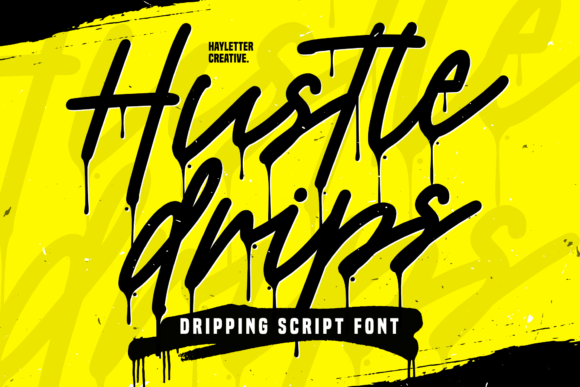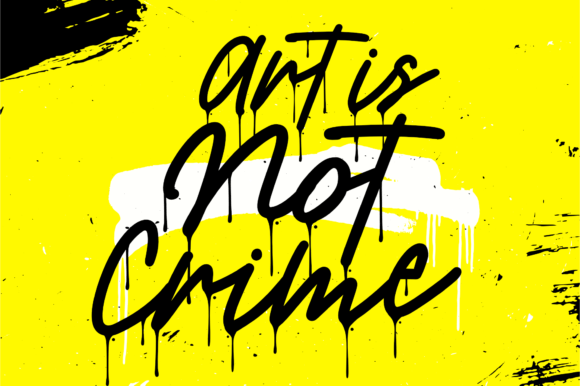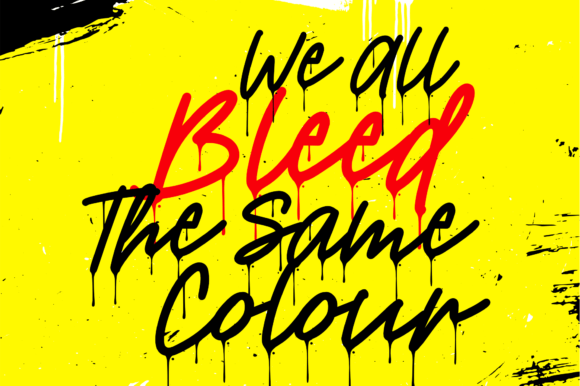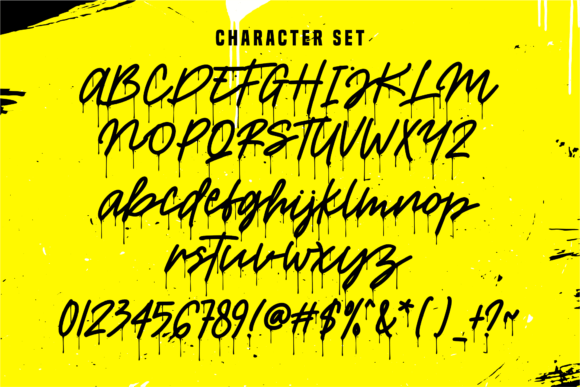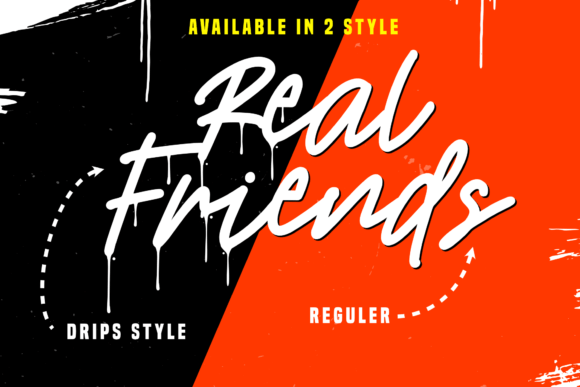
Unlock the Power of Urban Street Style with Hustle Drips Font
Remember that moment when you’re brainstorming ideas for your next project, and suddenly, a burst of creativity hits you? It’s like the whole world opens up, and you see endless possibilities. That’s exactly what happens when you bring the right font into the mix. Introducing Hustle Drips Font, a bold and distinctive script display font with a dripping style that’s sure to capture the essence of urban street graffiti.
With Hustle Drips Font, designers can add a touch of edginess to their designs, making them stand out from the crowd. Whether you’re creating a logo, poster, or social media graphics, this font is the perfect choice to convey a sense of urgency and energy. Its unique dripping style adds a dynamic element that’s sure to grab attention, making it a valuable asset for designers who want to make a lasting impression.
- Unique Characteristics: This font features a unique, hand-drawn style with a mix of modern and vintage elements, making it perfect for creating eye-catching headlines and titles.
Hustle Drips Font Review
I’ve had the chance to work with the Hustle Drips Font for a project, and I have to say it’s an interesting addition to my design toolbox. Here are some of my thoughts.
- ✨ The font’s unique blend of modern and vintage elements gives it a fresh, eye-catching look that’s perfect for creative projects.
- ✨ The font is highly customizable, with a range of options for adjusting letter spacing, font sizes, and more.
- ✨ The font is well-suited for headings and titles, where it can add a touch of personality and style to a design.
- ⚠️ The font may be too bold or overpowering for some designs, particularly those with a more minimalist aesthetic.
- ⚠️ The font’s customizability can be overwhelming, with too many options to choose from.
- ⚠️ The font may not be as legible at smaller font sizes, which can make it difficult to read in certain contexts.
The Hustle Drips Font is a bold, attention-grabbing font that’s perfect for projects where you want to make a statement. While it may have some limitations, I think it’s a great addition to any designer’s toolbox.
Hustle Drips Font is ideal for:
– Creating bold and eye-catching headings and titles.
– Adding a unique touch to graphics and illustrations.
– Enhancing the professional look of presentations and documents.